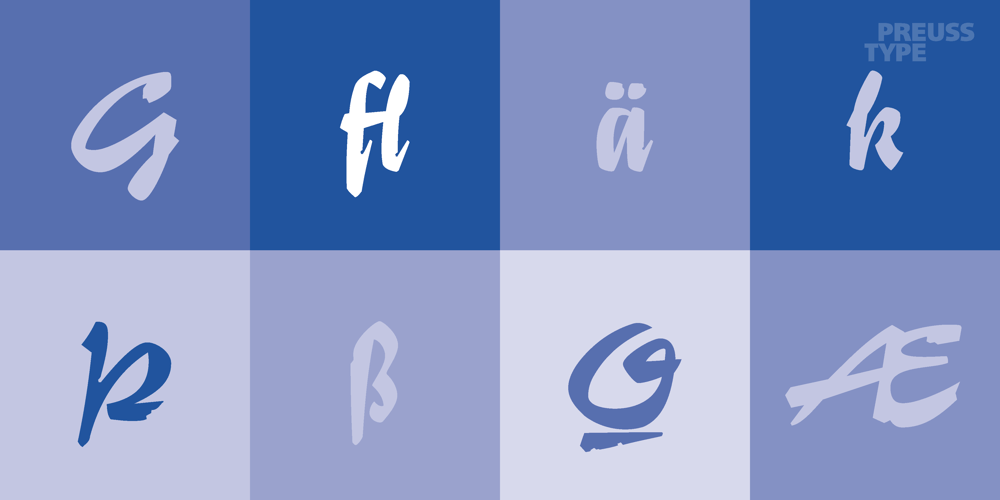
Rosalia Font Family was designed by Heinz Schumann, Ingo Preuss and published by preussTYPE. Rosalia contains 1 styles and family package options. Rosalia is an impulsive typeface designed by Heinz Schumann in 1964 as Stentor for Typoart Dresden. The marked stroke contrast and the spontaneous look typical of handwriting gives the typeface a lively, energetic character. The generous capitals lean slightly to the right and contrast beautifully with the reserved, upright lower case letters and can also be used for initialing. Rosalia is a good choice for headines and texts in middle to large point sizes. OpenType features: Contains 390 Glyhps Central European faces Standard Ligatures Discretionary Ligatures